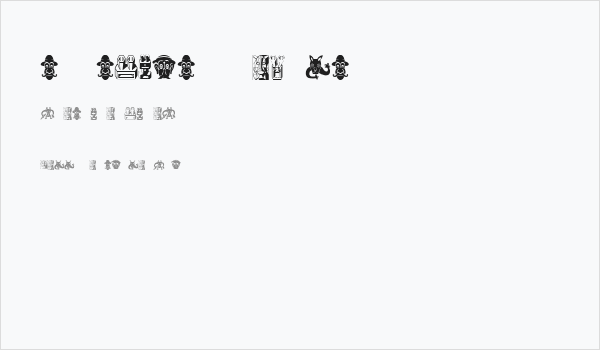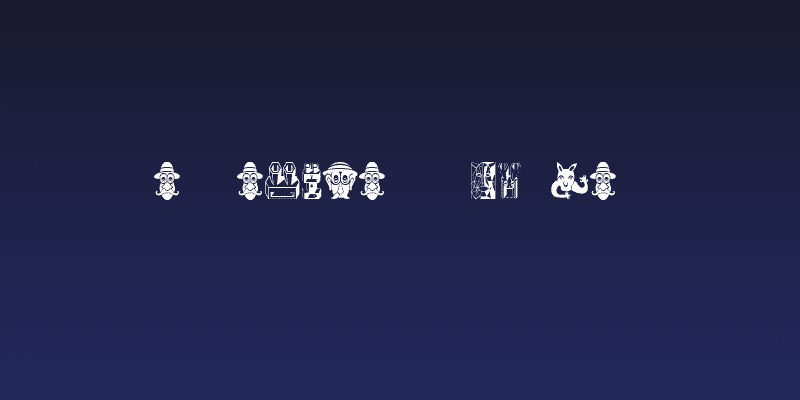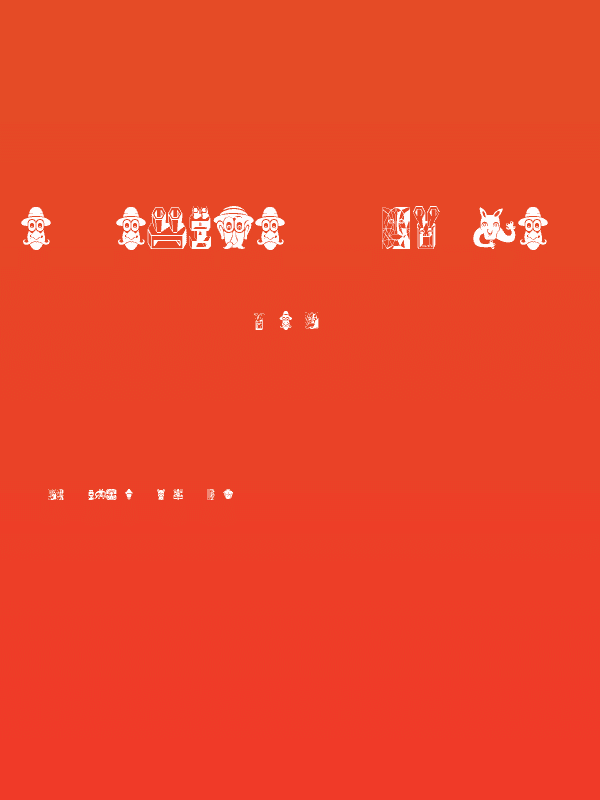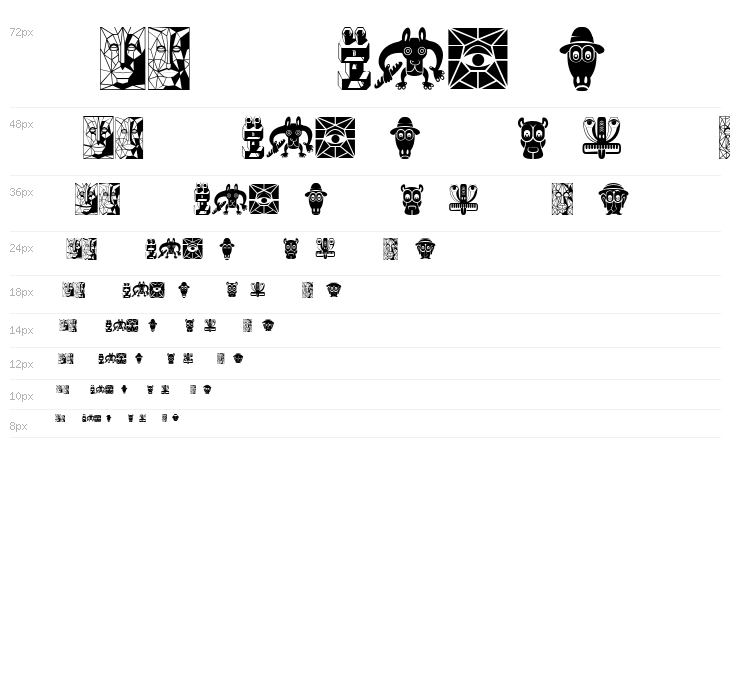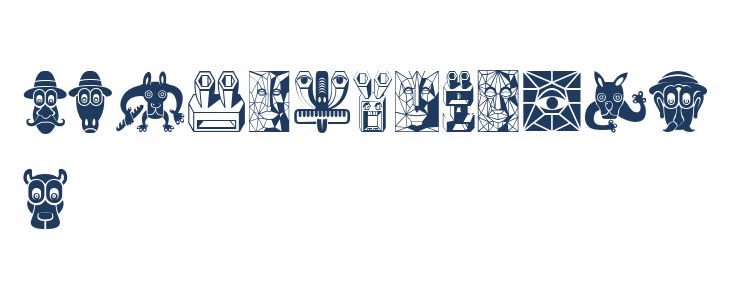
Atradimas Regular Font
Atradimas Regular Description
Highly decorative and illustrative font featuring unique, abstract, and whimsical character designs resembling masks, animals, and geometric patterns. Each glyph is a distinct pictogram rather than a traditional letterform.
| Overall Style | Decorative, Playful, Abstract |
| Use Case | Logos, Posters, Art projects, Headlines |
| Proposed Projects | Children’s books, posters, branding for creative industries, educational materials, art projects, event invitations. |